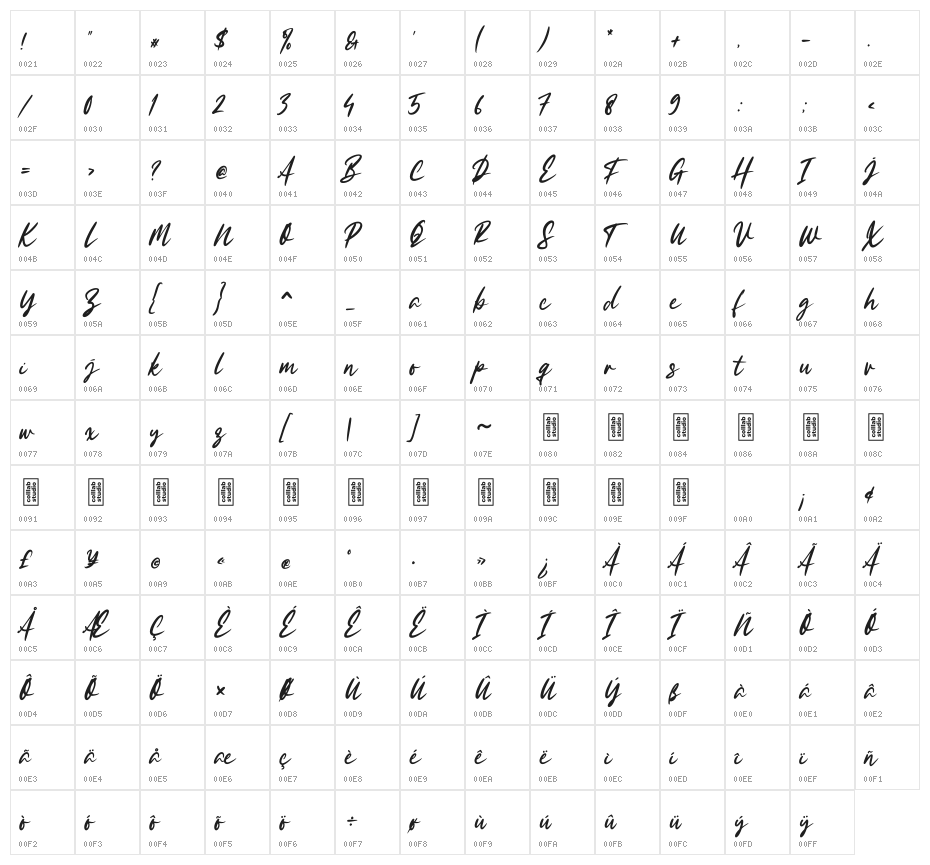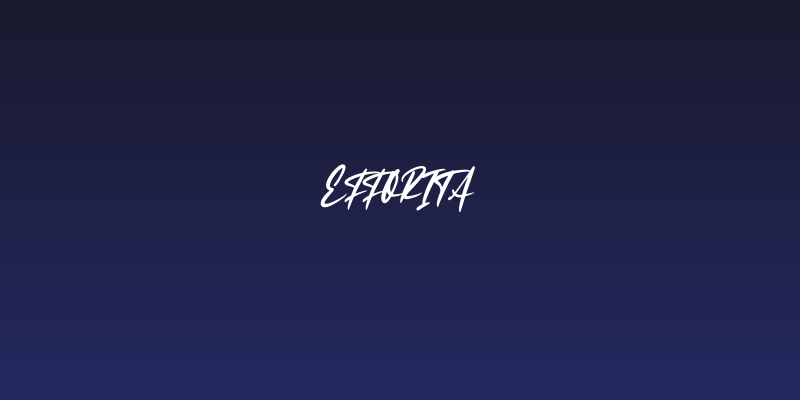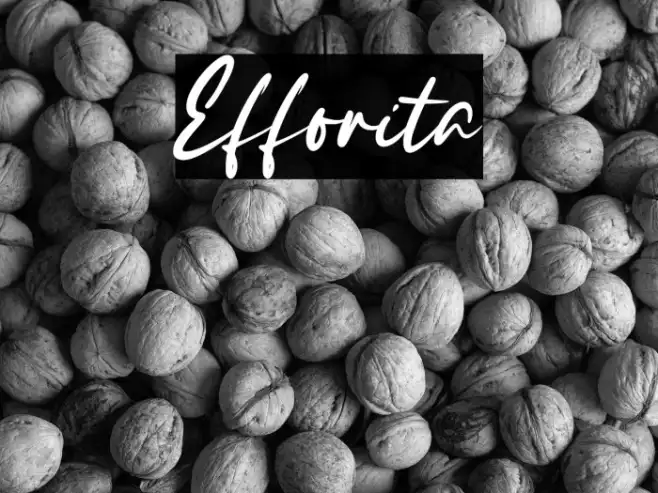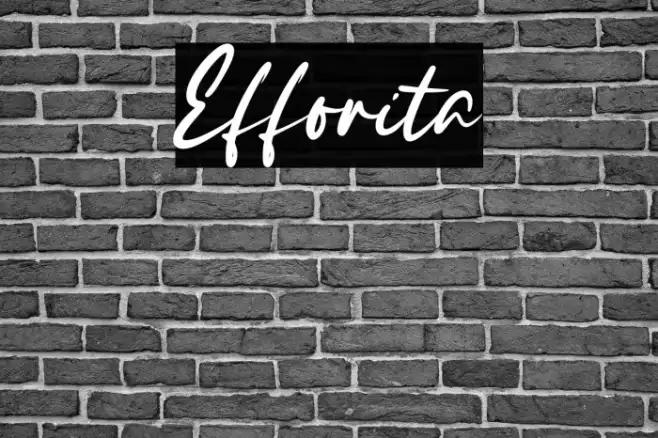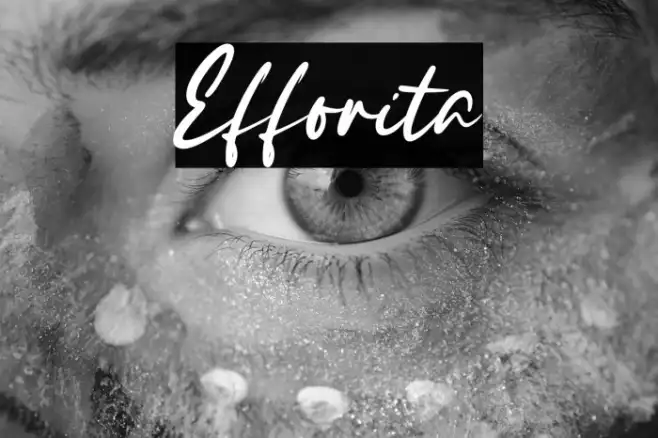
Efforita Font
Efforita Description
This font exudes a dynamic and energetic feel with its bold, cursive style. The letters are interconnected, creating a fluid and continuous flow that mimics natural handwriting. The strokes are thick and confident, with a slight slant that adds to the overall sense of movement. The uppercase letters are particularly striking, with their sweeping lines and dramatic flourishes. The lowercase letters maintain the same level of expressiveness, ensuring consistency throughout. Numbers and special characters are crafted with the same attention to detail, making this font versatile for various uses. Its bold presence makes it ideal for projects that require a strong visual impact.
| Proposed Projects | Ideal for branding, logos, invitations, and any project that requires a personal touch with a bold statement. |